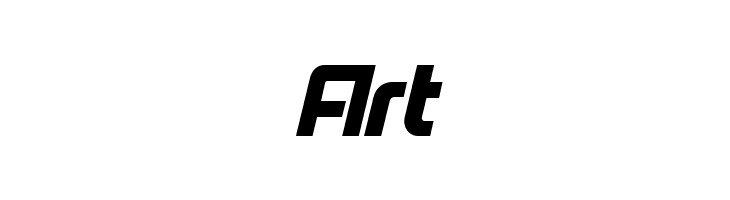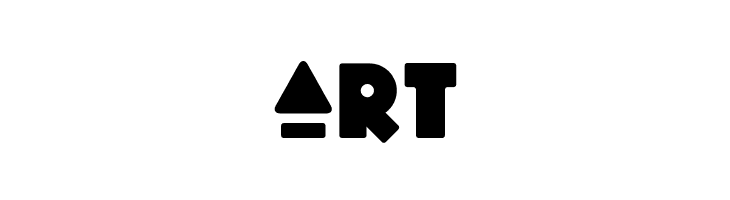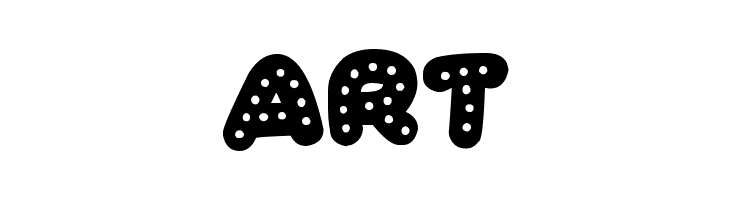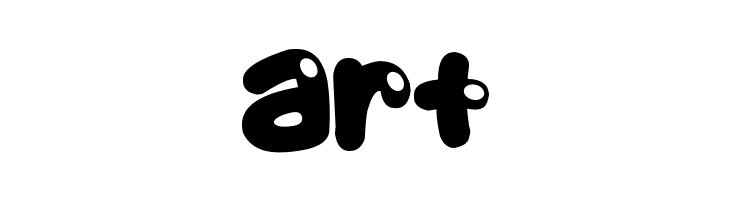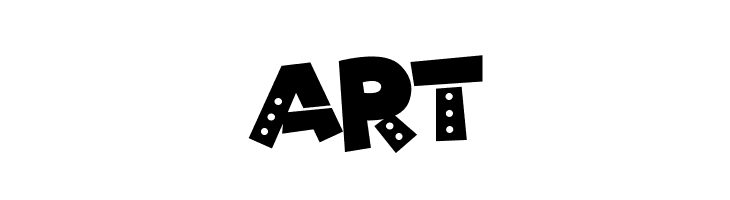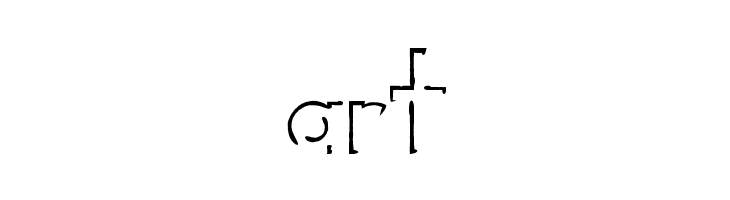
( Akos Polgardi - akospolgardi.com/ )
A bold, geometric font with unique cutouts and decorative elements.
( Bryan Augusto )
A futuristic, geometric font with bold, angular letterforms and unique cutouts.
( Darrell Flood )
A playful, cookie-inspired font with bold, rounded characters and decorative cutouts.
( Darrell Flood )
A playful, bubbly font with rounded, bold characters and whimsical cutouts.
( Darrell Flood )
A playful, bold font with a patchwork, robotic style featuring circular cutouts.
( David Martínez )
A modern, stencil-like font with geometric shapes and distinct cutouts.
( Didik Pratikno - joanatype.daportfolio.com )
A bold, playful font with rounded, geometric characters and unique cutouts.
( Dominik Krotscheck - www.dwiedoml.com )
A bold, geometric font with circular cutouts and a modern, futuristic style.
( Erik Getzel - www.erikgetzel.com.br )
A modern, geometric font with bold, uniform strokes and unique cutouts.